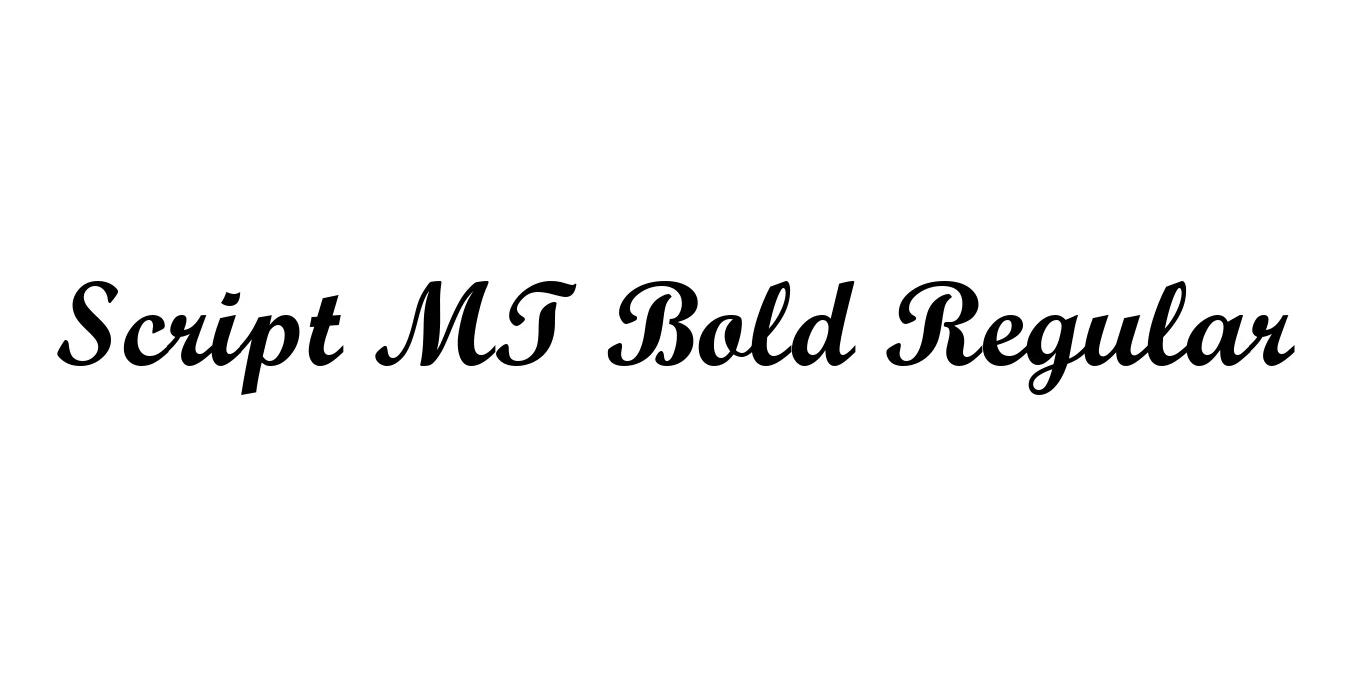
Script MT Bold Regular
Designed by Monotype Design Studio
Script MT Bold was originally developed for the Monotype Corporation during the early 1930s, drawing inspiration from the artistic handwriting styles prevalent in early 20th-century Germany. This typeface is distinguished by its pronounced contrast between thick and thin strokes, creating a rhythmic, fluid appearance that closely mimics professional calligraphy. The letters are intricately connected, lending a sense of continuity and elegance to any text string.
Unlike many contemporary script typefaces that lean towards a thin and delicate aesthetic, Script MT Bold offers a heavier, more impactful weight. This makes it exceptionally effective for display purposes, advertising, and formal stationery. Its enduring popularity stems from its ability to balance traditional sophistication with a bold, legible structure, making it a favorite for both print and digital media designers over several decades.
Script MT Bold Regular Best Uses
Highly suitable for wedding cards and formal event invitations needing a touch of class.
Great for luxury branding and sophisticated wordmarks in the fashion industry.
Effective for short, punchy headlines in high-end lifestyle magazines.
Adds a personal, hand-written touch to holiday and special occasion cards.